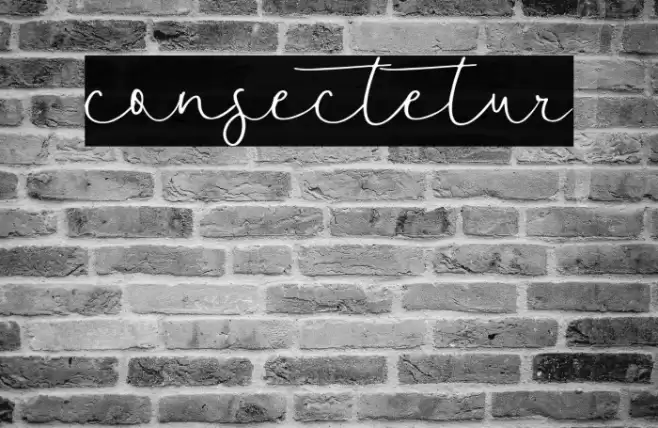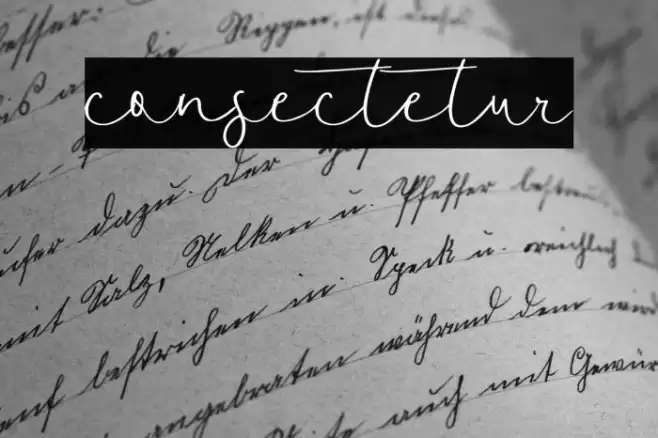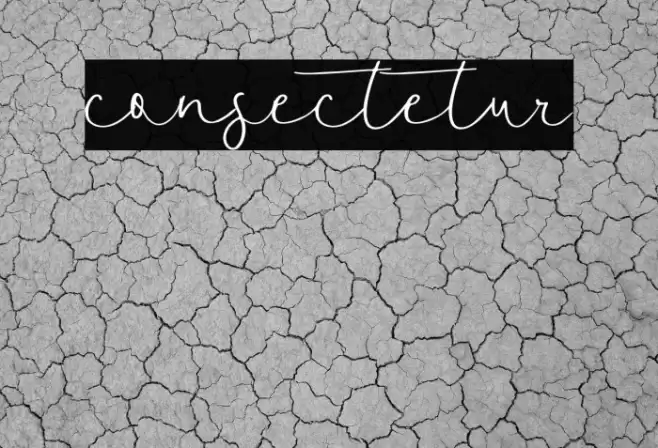
consectetur Font
consectetur Description
This font exudes a charming handwritten style, characterized by its fluid and continuous strokes that mimic natural handwriting. The letters are elegantly connected, creating a seamless flow that enhances its personal and intimate feel. The uppercase letters maintain a consistent height, while the lowercase letters vary slightly, adding to the organic appearance. Numbers and special characters are crafted with the same attention to detail, ensuring uniformity across all elements. The overall design is both playful and sophisticated, making it versatile for various creative applications.
A charming handwritten font with fluid, continuous strokes and an elegant, personal feel from Uncategorized fonts.
- Proposed Projects: Ideal for wedding invitations, personal branding, greeting cards, and artistic projects that require a personal touch.
- Use Case: Logos, Invitations, Artistic projects